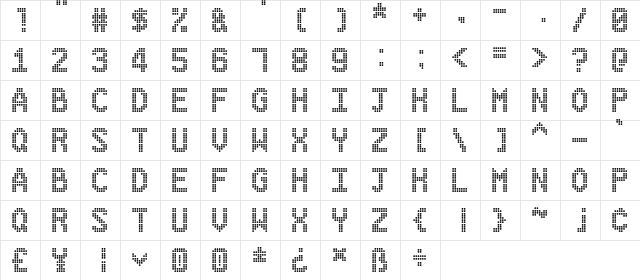
Danger on the Motorway Regular
| Designer | GameDevDan |
Design Context for Danger on the Motorway Typeface
Danger on the Motorway takes a measured approach to typography — its balanced proportions and neutral character make it a reliable workhorse for both digital and print work.